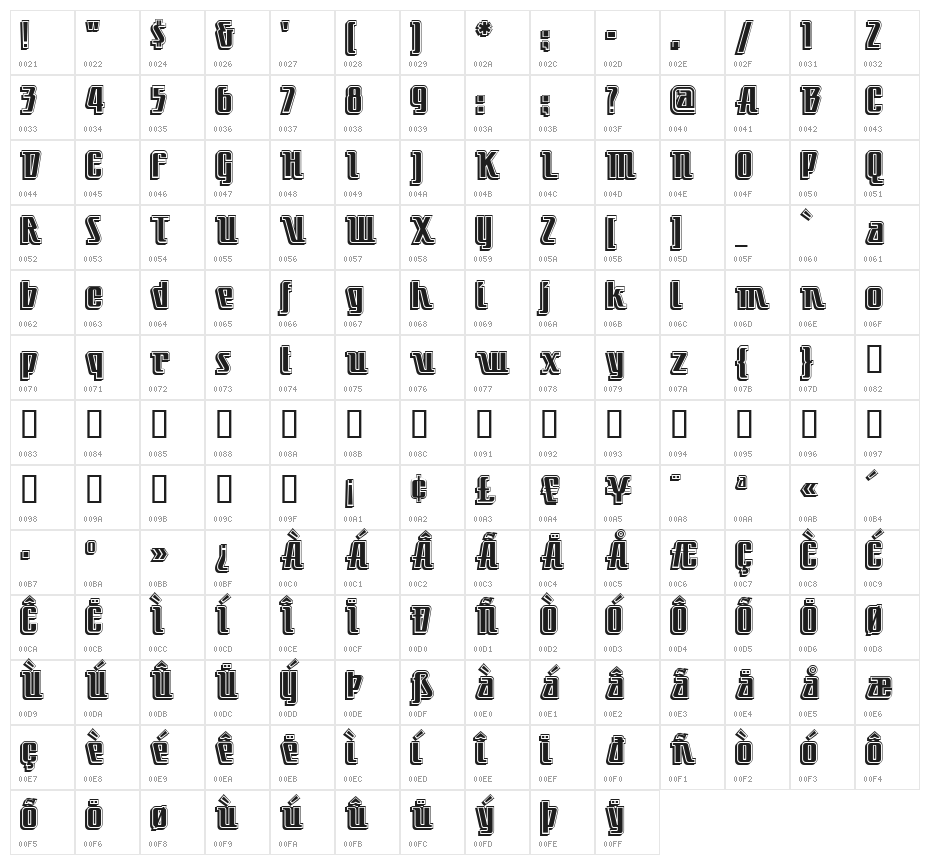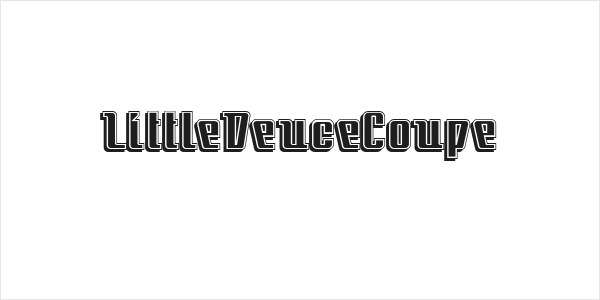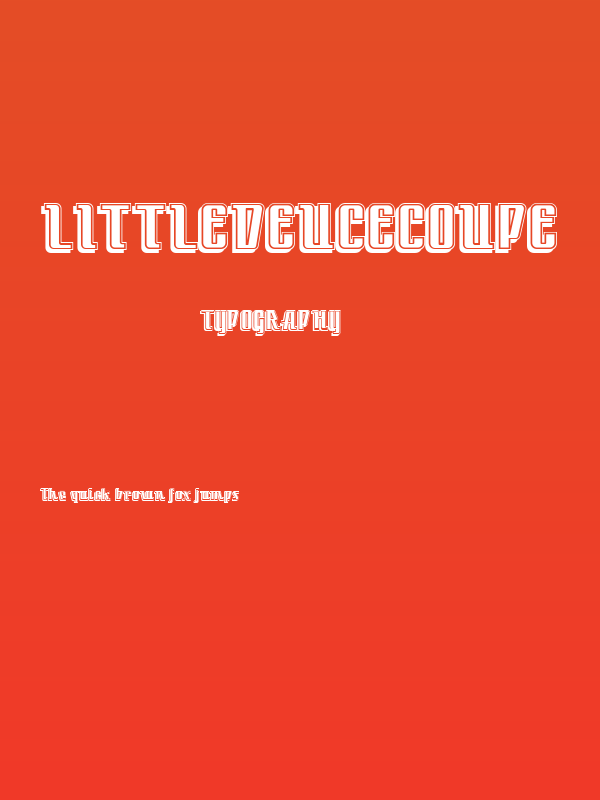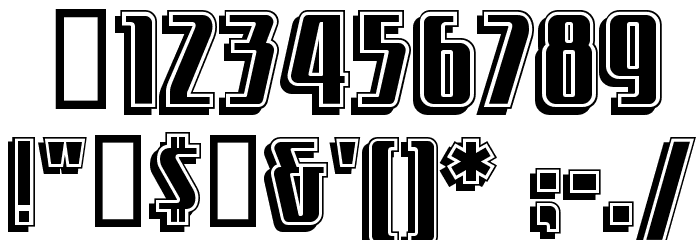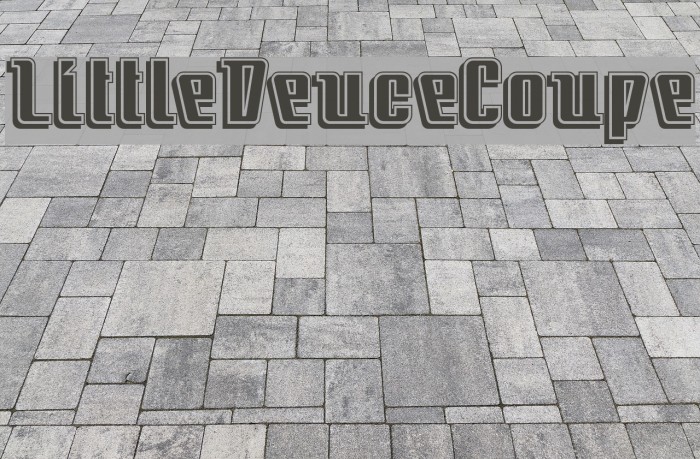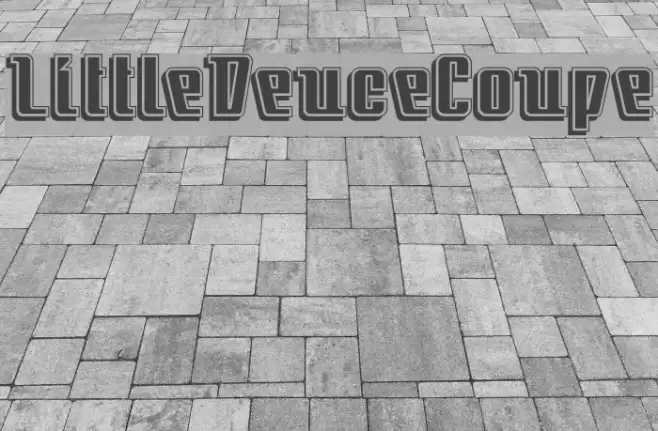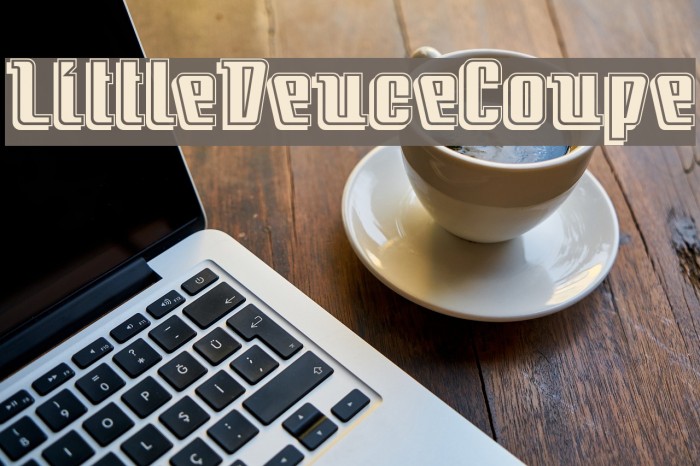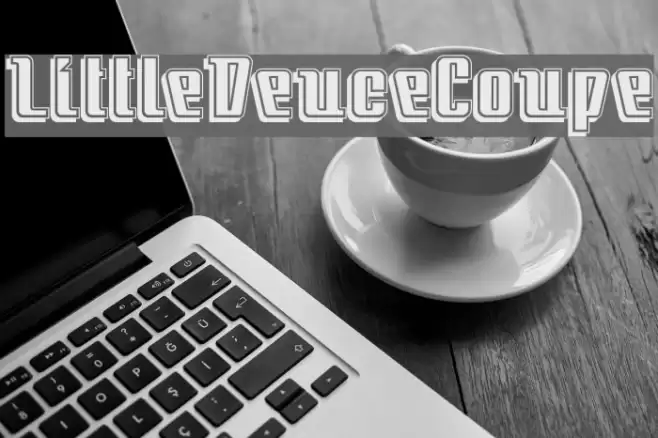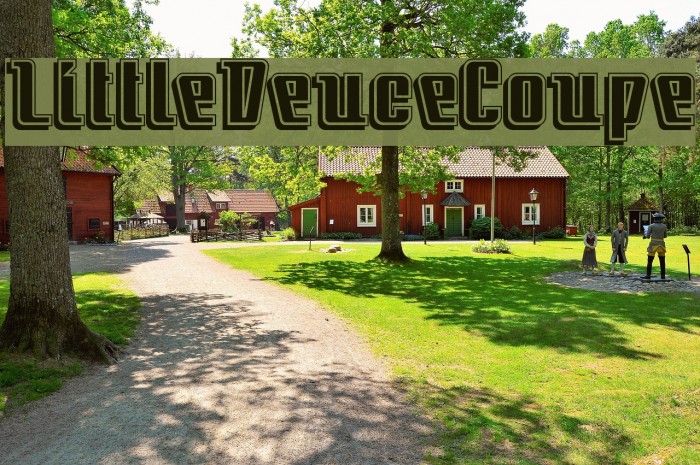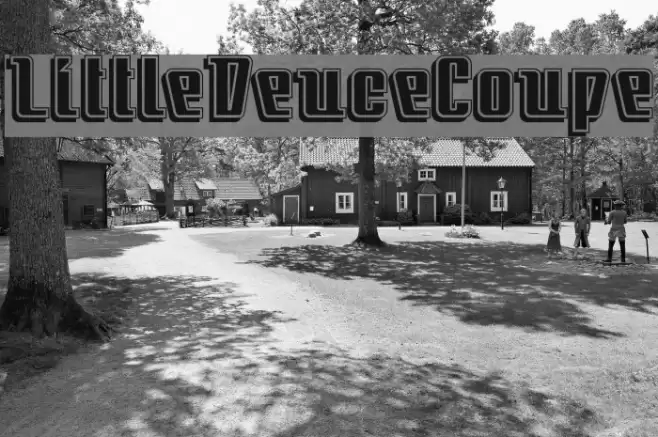
LittleDeuceCoupe Font
LittleDeuceCoupe Description
This font features a bold, decorative style with a distinct outline that gives each character a three-dimensional appearance. The uppercase and lowercase letters maintain a consistent width, with sharp angles and clean lines that contribute to a modern and edgy look. The numbers and special characters follow the same design principles, ensuring uniformity across all glyphs. The font's unique style makes it stand out, with a strong presence that can capture attention in various design contexts. Its boldness and decorative elements suggest a playful yet assertive tone, suitable for projects that require a strong visual impact.